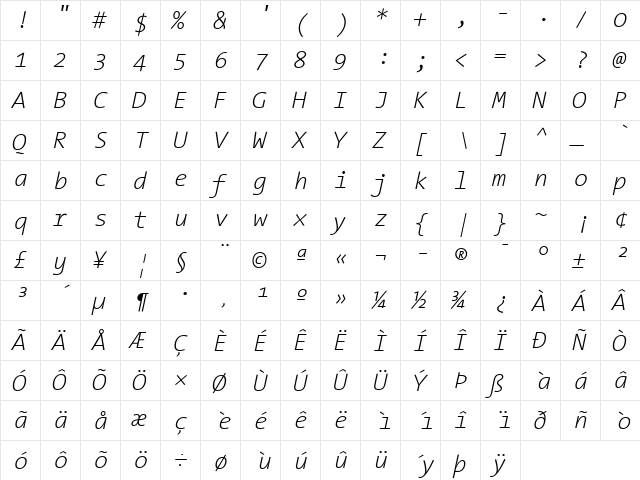
TheSansMono ExtraLight Italic Font Preview
| Foundry | Luc\(as\) de Groot |
Design Context for TheSansMono Typeface
TheSansMono brings the precise, column-aligned rhythm of monospaced typography to designs that value technical clarity and systematic order. Its italic angle brings a sense of urgency and motion to the letterforms. Its slender proportions lend an understated elegance to any composition.